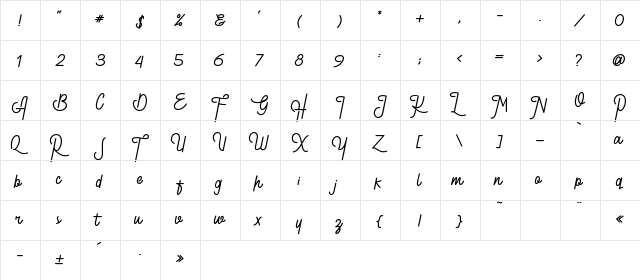
Retroville_DEMO Regular
Design Context for Retroville_DEMO Typeface
Retroville_DEMO has the warm character of retro typography — evoking diners, record sleeves, and the golden age of print advertising.
Ideal for diner signage, record shop branding, 70s/80s-themed projects, and heritage product labels.
Font Pairing: Combine Retroville_DEMO with a simple slab or neutral sans — period-accurate companions reinforce the vintage feel without competing for attention.
Pro Tip: Lean into Retroville_DEMO's period character by pairing it with aged paper textures, muted colour palettes, and vintage illustration styles.